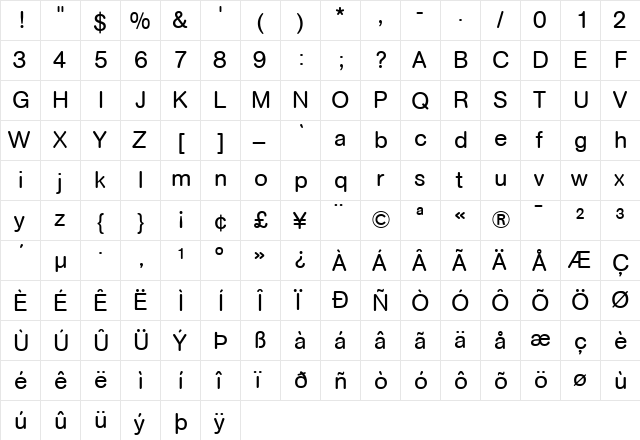
AGRounded-Book Book Font Preview
AGRounded-Book Book
Design Context for AGRounded-Book Typeface
AGRounded-Book softens its letterforms with rounded terminals, giving it an approachable, friendly quality that works well in consumer-facing and digital contexts.
Well-suited to UI design, mobile interfaces, and any brand that wants approachability without sacrificing clarity.
Font Pairing: Pairs well with a rounded or humanist sans for body copy, maintaining the friendly tone without relying on AGRounded-Book to carry extended reading.
Pro Tip: Use AGRounded-Book for UI elements, app interfaces, and anywhere a friendly, approachable tone needs to be maintained without sacrificing clarity.